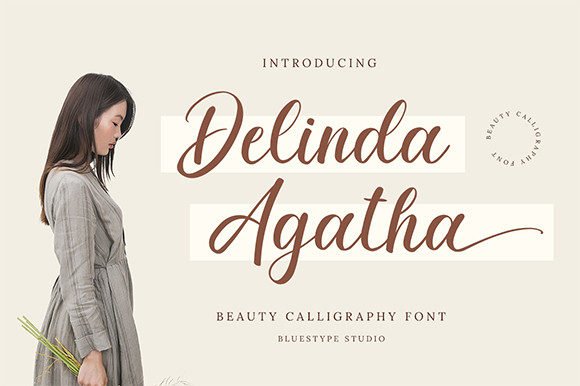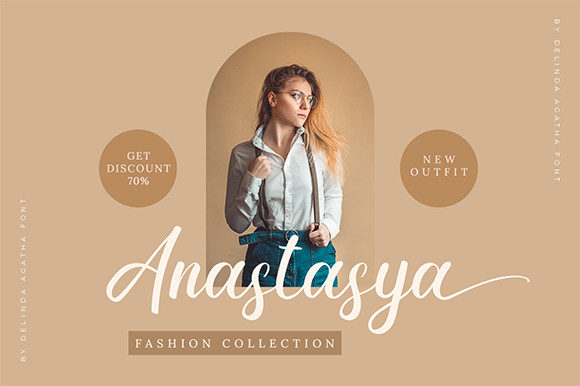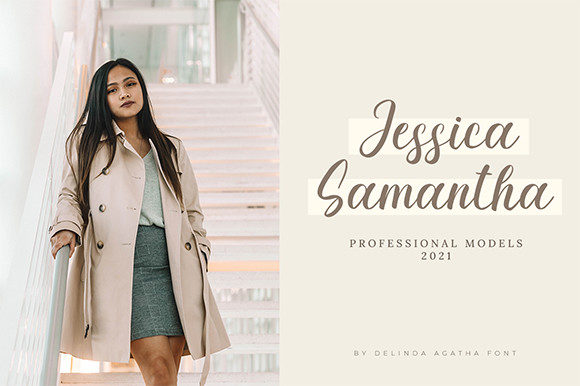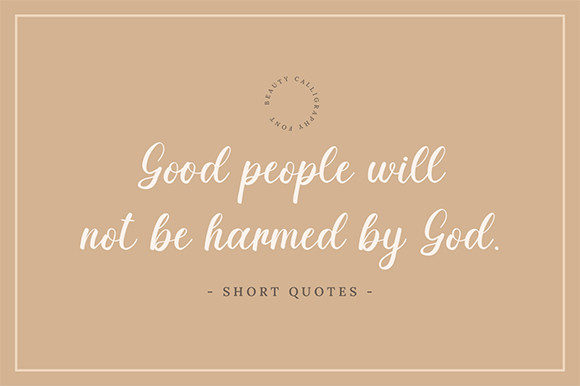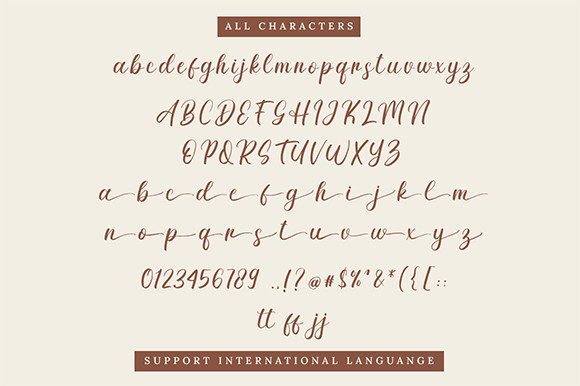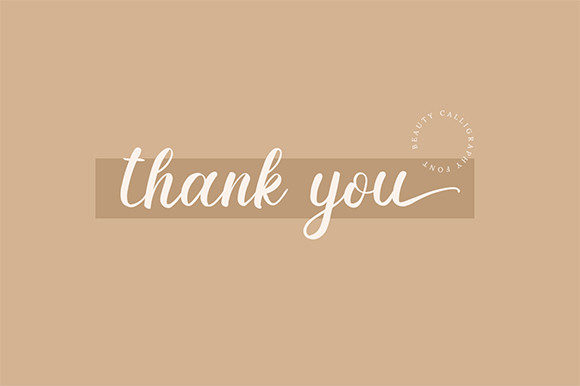
Unleash Your Creativity with Delinda Agatha Font
There’s something magical about sitting at your desk, surrounded by blank pages and a blank mind. The cursor blinks, waiting for you to spark a new idea. And then, it happens – a single word, a phrase, or a sentence flows effortlessly onto the page. This is the moment when creativity takes over, and the world becomes full of possibilities. For designers, this moment is what drives us to push the boundaries of our craft.
That’s why we’re excited to introduce you to Delinda Agatha Font, a delicate, flowing, and unique script font designed to elevate your projects to new heights. With its PUA encoding, you’ll have access to a world of glyphs and swashes that will add a personal touch to your work. Whether you’re a seasoned designer or just starting out, Delinda Agatha Font is the perfect companion to help you bring your vision to life.
Delinda Agatha Font Key Features
- Font Family: Delinda Agatha
- Font Styles: Regular, Italic, Bold, Bold Italic
- Character Set: Latin, Cyrillic, Greek
Delinda Agatha Font Review
Overall, I’m impressed with the Delinda Agatha Font. It’s a beautiful, elegant script font that would be perfect for creating invitations, wedding stationery, or any other design project that requires a touch of sophistication. ✨ The font is highly customizable, allowing you to adjust the size, color, and spacing to fit your design needs.
Here are some of the things I like about the Delinda Agatha Font:
- ✨ Elegant and refined design that’s perfect for formal events
- ✨ Highly customizable, allowing for precise control over size, color, and spacing
- ⚠️ The font may be too ornate for some designs, potentially overwhelming the content
- ⚠️ Some users may find the font difficult to read in smaller sizes or at a distance
Overall, I think the Delinda Agatha Font is a great choice for designers who want to add a touch of elegance to their projects. While it may have some limitations, the benefits far outweigh the drawbacks.
Delinda Agatha Font is ideal for:
- Editorial and magazine design
For optimal results, pair Delinda Agatha Font with a clean and minimalist design aesthetic.
Alternatives to Delinda Agatha Font
Carolyna Pro is a modern script font with a elegant and sophisticated feel. It’s perfect for designers who want to create a high-end look for their branding, packaging, or advertising materials. Carolyna Pro has a similar flowing feel to Delinda Agatha, but with a more refined and polished look.
Comparison: While Delinda Agatha has a more playful and whimsical feel, Carolyna Pro is more suited for formal and professional projects.
Great Vibes is a beautiful and elegant script font that’s perfect for designers who want to create a sense of luxury and sophistication. It’s great for branding, packaging, and advertising materials, and is especially suited for projects that require a high-end feel. Great Vibes has a similar flowing feel to Delinda Agatha, but with a more refined and elegant look.
Comparison: While Delinda Agatha has a more playful and whimsical feel, Great Vibes is more suited for formal and professional projects.
Alex Brush is a beautiful and elegant script font that’s perfect for designers who want to create a sense of warmth and sophistication. It’s great for branding, packaging, and advertising materials, and is especially suited for projects that require a personal and emotional touch. Alex Brush has a similar flowing feel to Delinda Agatha, but with a more relaxed and natural look.
Comparison: While Delinda Agatha has a more playful and whimsical feel, Alex Brush is more suited for projects that require a sense of warmth and approachability.
Delinda Agatha Font Projects
Create a unique and elegant wedding invitation using the Delinda Agatha Font.
How to use Delinda Agatha Font: Use the font for the main title, ‘Love is in the Air’, in a bold and playful manner. Pair it with elegant calligraphy for the wedding details.